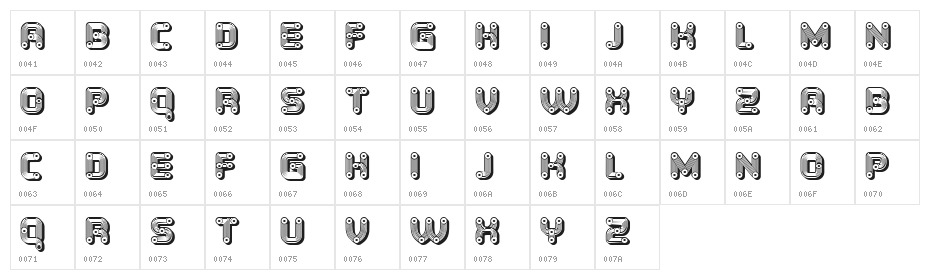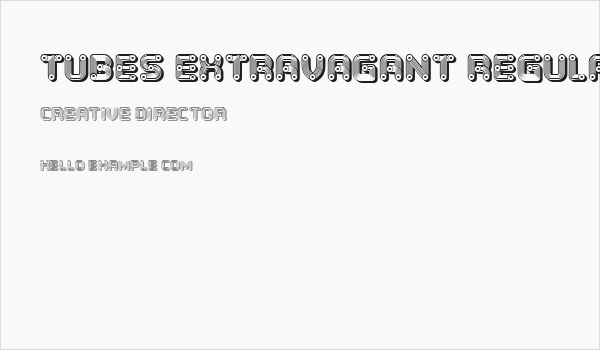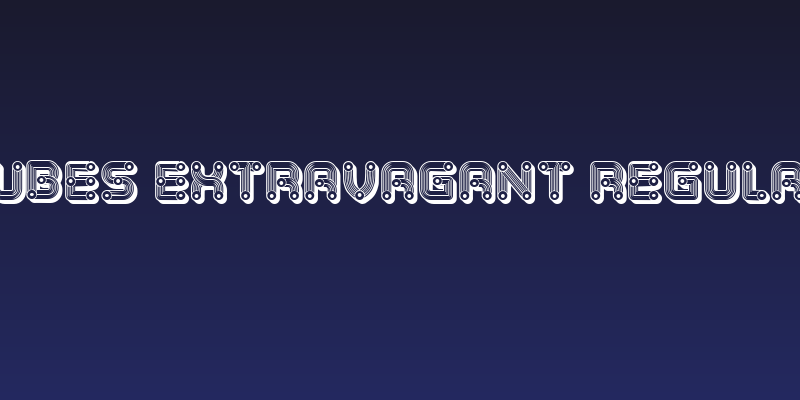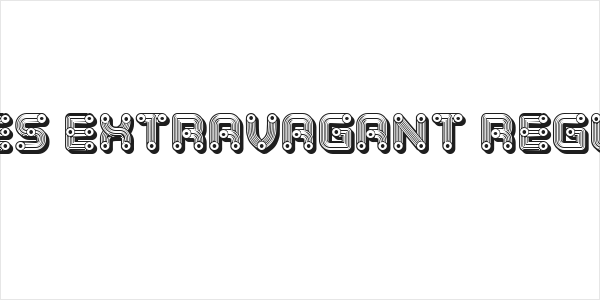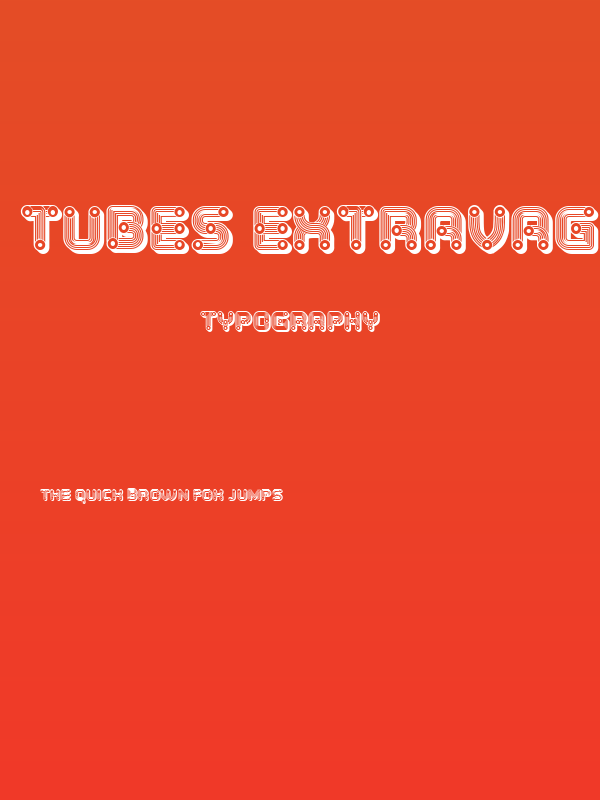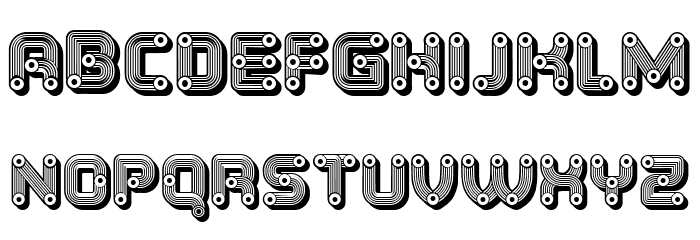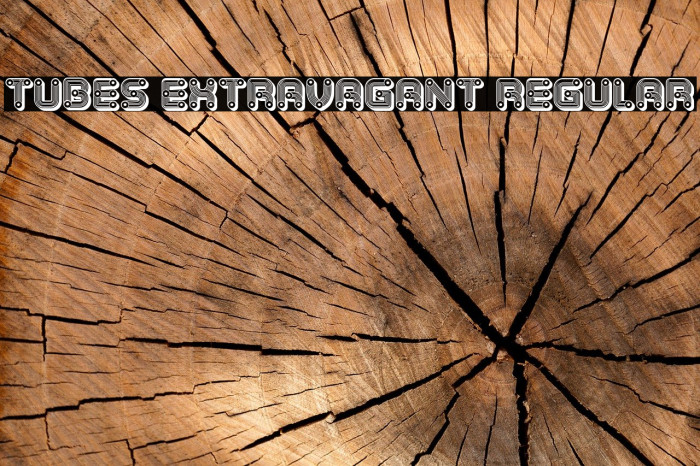
Tubes Extravagant Regular Font
Tubes Extravagant Regular Description
This font features a highly decorative and intricate design, characterized by a series of interconnected lines and circular motifs that create a tubular appearance. The letters are bold and eye-catching, with a futuristic and industrial feel. The design incorporates multiple layers of lines, giving it a sense of depth and complexity. The font is highly stylized, making it suitable for projects that require a strong visual impact. Its unique structure and detailed elements make it stand out, ideal for creative and artistic applications.
| Proposed Projects | Ideal for posters, album covers, branding, and any project needing a striking, modern aesthetic. |